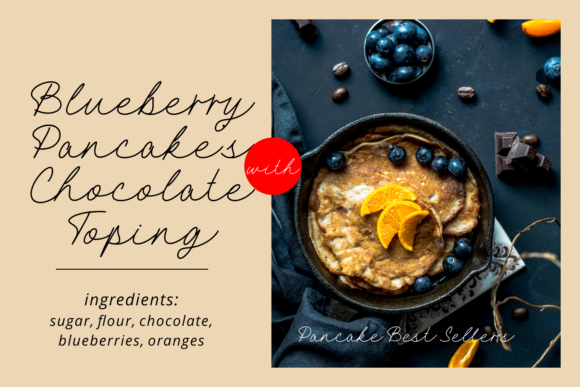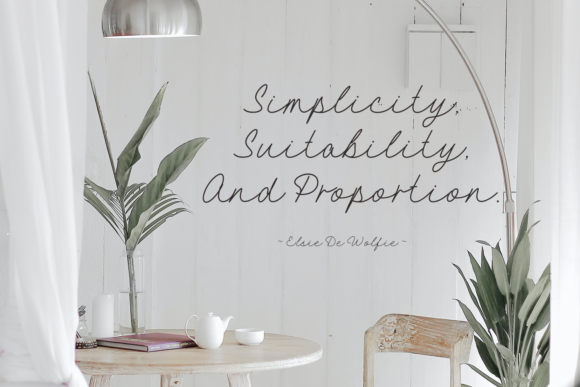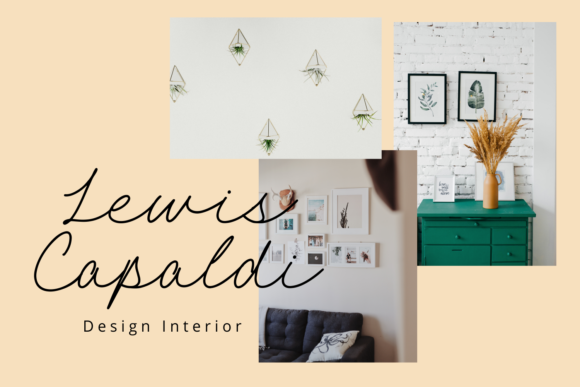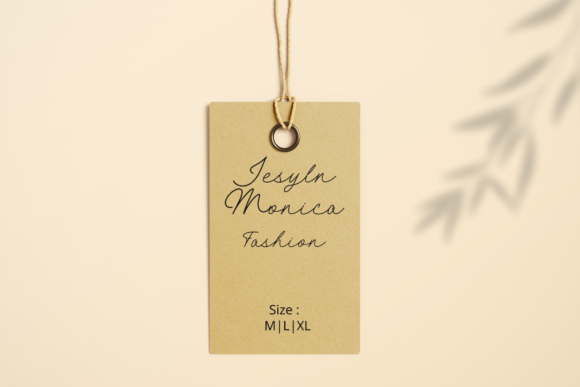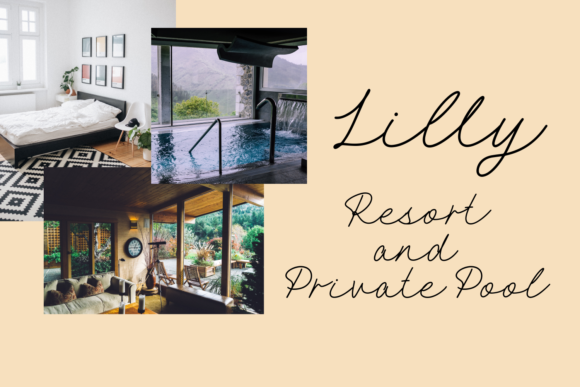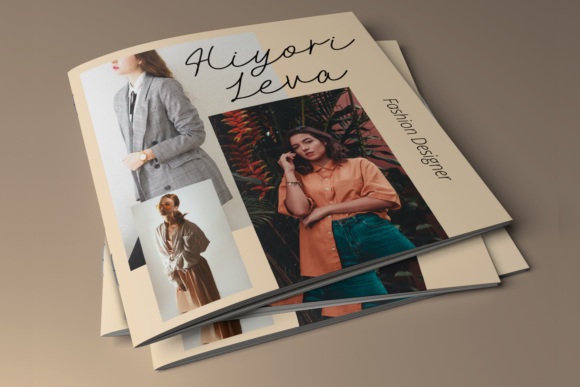
Hellena Font: The Delicate and Flowing Handwritten Font for Your Creative Projects
Are you looking for a font that can add a touch of elegance and sophistication to your creative projects? Look no further than the Hellena font. This delicate and flowing handwritten font is perfect for designers and crafters who want to create beautiful and eye-catching designs. In this article, we’ll take a closer look at the Hellena font, its features, and how you can use it to elevate your designs.
What is Hellena Font?
Hellena is a beautiful handwritten font that is designed to be incredibly versatile. Its delicate and flowing lines make it perfect for a wide range of creative projects, from wedding invitations and stationary art to social media posts and more. The font is carefully crafted to create a sense of elegance and sophistication, making it ideal for designers and crafters who want to add a touch of luxury to their designs.
Features of Hellena Font
The Hellena font has several features that make it stand out from other fonts. Some of its key features include:
- Delicate and flowing lines: The Hellena font has a delicate and flowing design that gives it a sense of elegance and sophistication.
- Incredibly versatile: The font is designed to be incredibly versatile, making it perfect for a wide range of creative projects.
- Handwritten style: The Hellena font has a beautiful handwritten style that gives it a personal and unique touch.
- Easy to read: Despite its delicate design, the Hellena font is easy to read, making it perfect for use in body text and other applications.
Uses of Hellena Font
The Hellena font is perfect for a wide range of creative projects, including:
- Wedding invitations: The Hellena font is perfect for creating beautiful and elegant wedding invitations that will set the tone for your special day.
- Stationary art: The font is also great for creating beautiful stationary art, including greeting cards, thank you cards, and more.
- Social media posts: The Hellena font is perfect for creating eye-catching social media posts that will help you stand out from the crowd.
- Branding and packaging: The font can also be used for branding and packaging, adding a touch of elegance and sophistication to your products.
Tips for Using Hellena Font
Here are some tips for using the Hellena font in your creative projects:
- Use it sparingly: While the Hellena font is beautiful, it can be overwhelming if used too much. Use it sparingly to create a sense of elegance and sophistication.
- Pair it with other fonts: The Hellena font pairs well with other fonts, including serif and sans serif fonts. Experiment with different pairings to find the one that works best for your project.
- Experiment with colors: The Hellena font looks great in a variety of colors, from soft pastels to bold and bright colors. Experiment with different colors to find the one that works best for your project.
The Hellena font is a beautiful and versatile handwritten font that is perfect for designers and crafters who want to add a touch of elegance and sophistication to their creative projects. With its delicate and flowing lines, incredibly versatile style, and easy-to-read design, the Hellena font is perfect for a wide range of applications, from wedding invitations and stationary art to social media posts and more. Whether you’re a professional designer or a crafter, the Hellena font is sure to become a favorite in your toolkit.